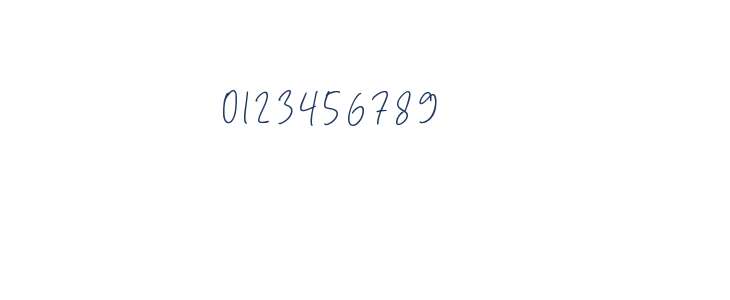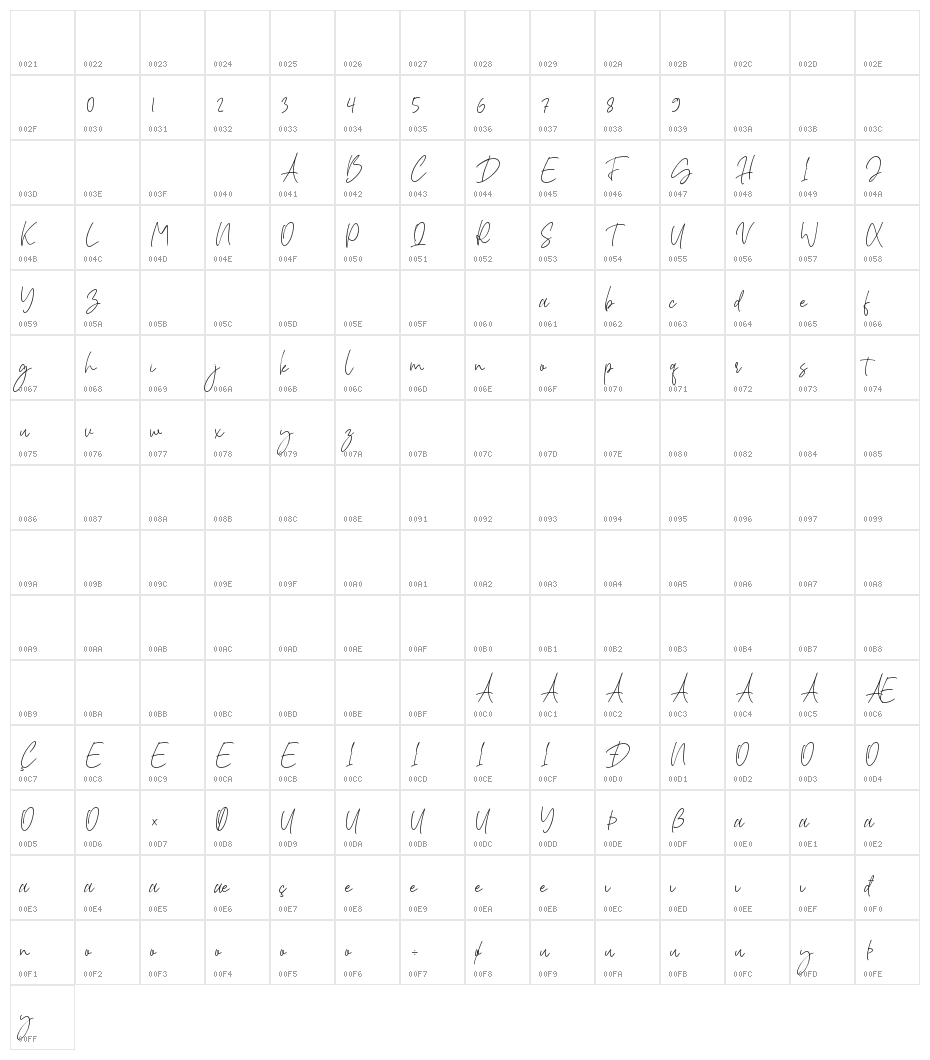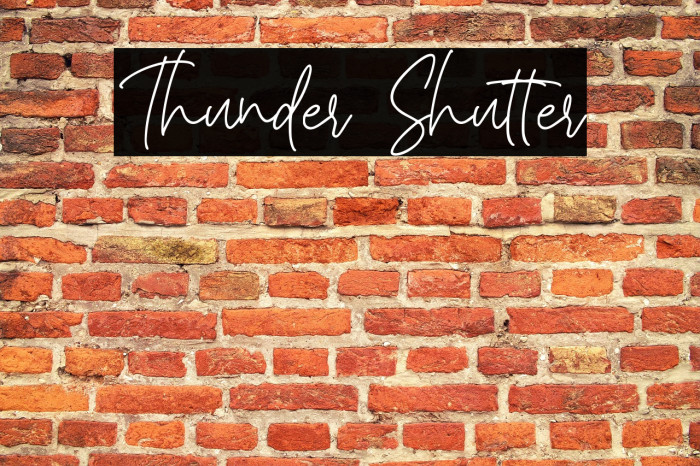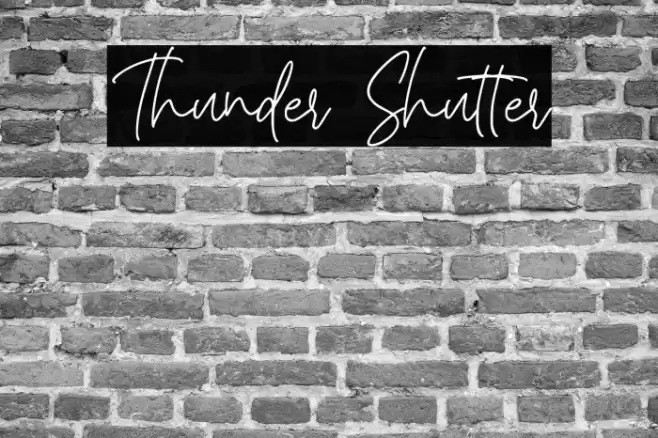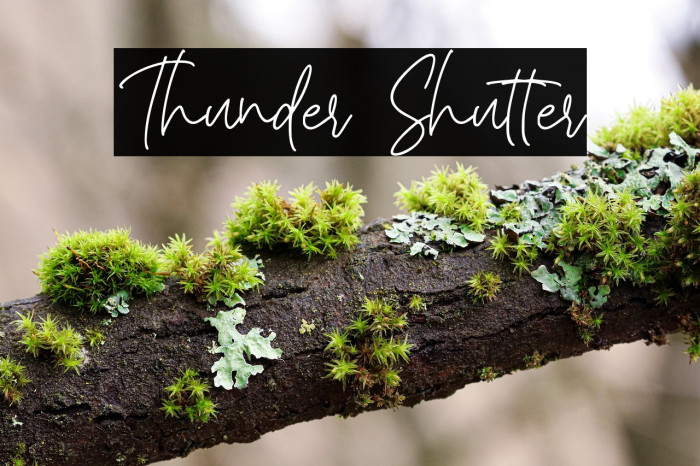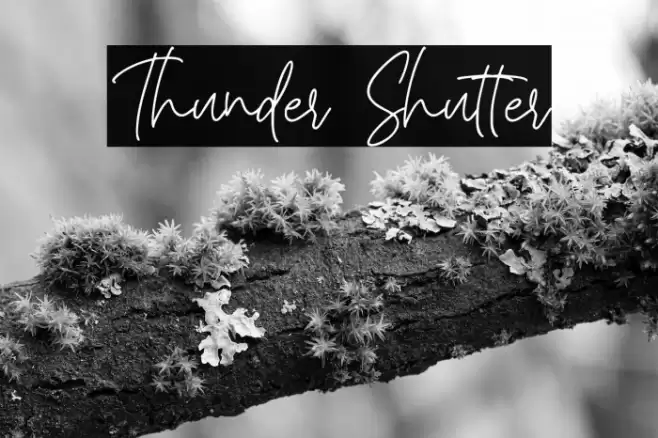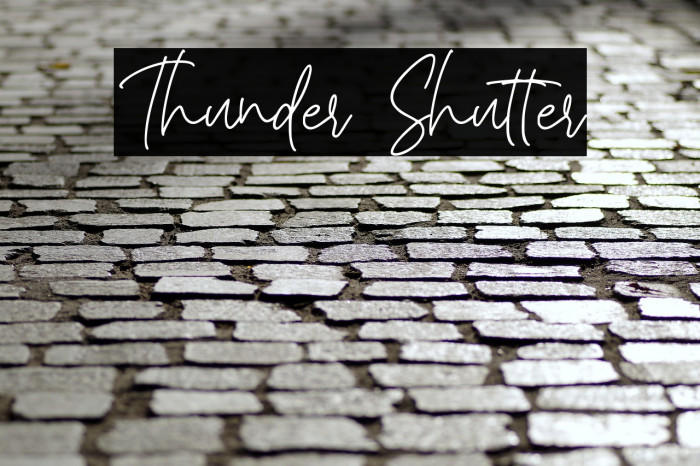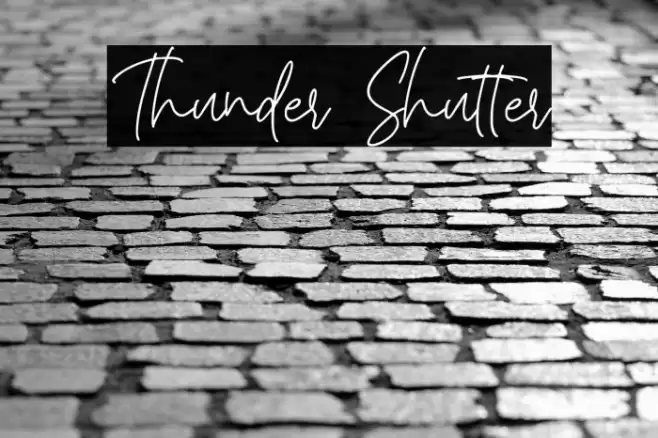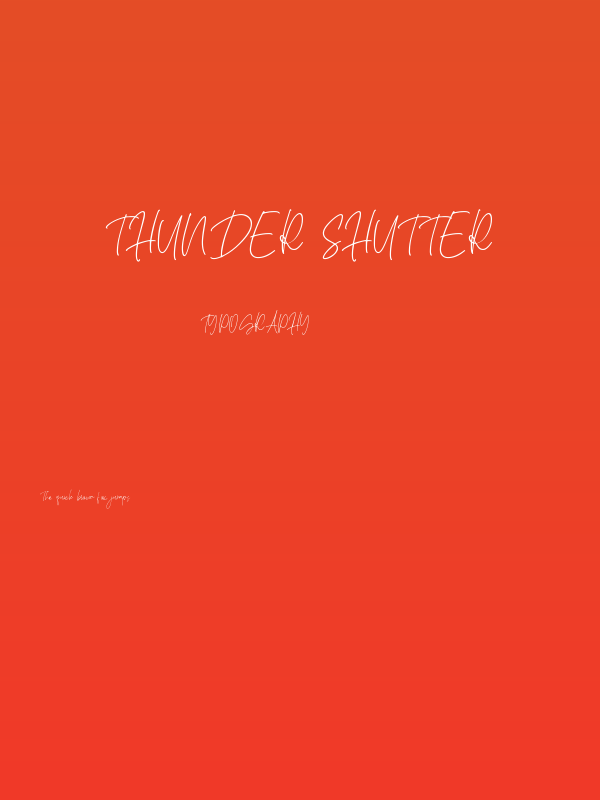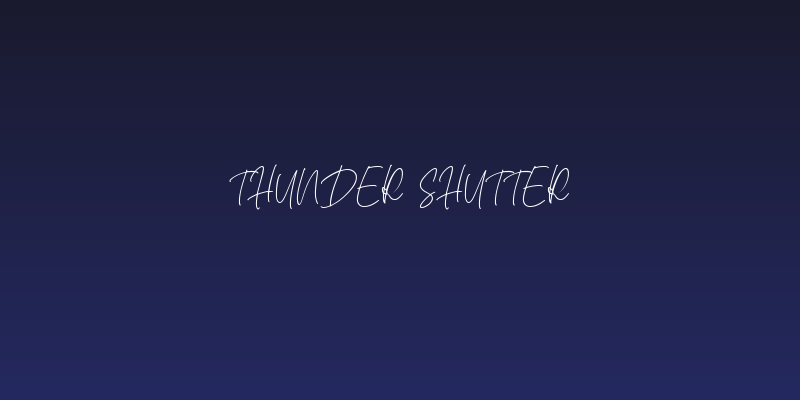
Thunder Shutter Font
Thunder Shutter Description
This font exudes a casual, handwritten style with a modern twist. The characters are elegantly elongated, with a fluid and continuous stroke that mimics natural handwriting. The uppercase letters are distinctively taller and more pronounced, while the lowercase letters maintain a consistent flow, adding a touch of sophistication. The numerals are clear and legible, complementing the overall aesthetic. The special characters are seamlessly integrated, maintaining the font's cohesive look. This font is perfect for projects that require a personal touch, such as invitations, greeting cards, or branding materials.
Use CaseLogos, Headlines, Personal projects
Proposed ProjectsIdeal for invitations, greeting cards, branding, and personal projects.